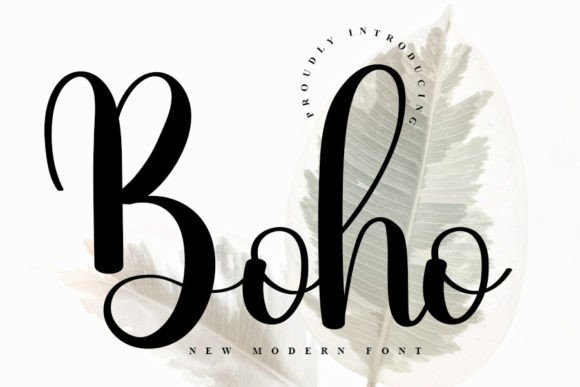
Discover the Elegance of Boho Font: A Delicate and Flowing Handwritten Style
In the world of typography, few fonts capture the essence of elegance and delicacy as beautifully as the Boho Font. This stunning handwritten font is characterized by its flowing lines, delicate strokes, and well-balanced characters, making it an ideal choice for a wide range of design projects. Whether you’re a designer, crafter, or simply someone who appreciates the art of typography, Boho Font is sure to captivate you with its unique charm.
What Makes Boho Font So Special?
Boho Font is a delicate, elegant, and flowing handwritten font that boasts beautiful and well-balanced characters. Its unique features include:
- Flowing Lines: Boho Font’s flowing lines give it a sense of movement and fluidity, making it perfect for designs that require a touch of elegance and sophistication.
- Delicate Strokes: The font’s delicate strokes add a level of refinement and precision, making it suitable for a wide range of design applications, from wedding invitations to branding and packaging.
- Well-Balanced Characters: Each character in Boho Font is carefully crafted to ensure perfect balance and harmony, resulting in a font that is both visually appealing and easy to read.
Versatility at Its Best: Pairing Boho Font with Various Design Styles
One of the standout features of Boho Font is its incredible versatility. Its delicate and flowing nature makes it an excellent match for a wide pool of designs, including:
- Wedding and Event Design: Boho Font is perfect for wedding invitations, save-the-date cards, and other event-related designs, adding a touch of romance and sophistication.
- Fashion and Beauty: The font’s elegant and refined nature makes it an excellent choice for fashion and beauty brands, particularly those with a bohemian or vintage aesthetic.
- Stationery and Packaging: Boho Font is ideal for designing stationery, such as notebooks, journals, and greeting cards, as well as packaging materials, like labels and gift tags.
Tips for Designers and Crafters Working with Boho Font
To get the most out of Boho Font, here are some valuable tips for designers and crafters:
- Experiment with Colors: Boho Font looks stunning in a range of colors, from soft pastels to rich jewel tones. Don’t be afraid to experiment and find the perfect color combination for your design.
- Play with Ligatures: Boho Font features beautiful ligatures that can add an extra touch of elegance to your design. Experiment with different ligature combinations to create unique and eye-catching text.
- Mix and Match with Other Fonts: Boho Font pairs beautifully with other fonts, particularly those with a bold or serif style. Don’t be afraid to mix and match fonts to create visually interesting and dynamic designs.
In conclusion, Boho Font is a stunning handwritten font that offers a unique blend of elegance, delicacy, and versatility. Its flowing lines, delicate strokes, and well-balanced characters make it an excellent choice for a wide range of design projects, from wedding invitations to branding and packaging. Whether you’re a designer, crafter, or simply someone who appreciates the art of typography, Boho Font is sure to captivate you with its timeless charm.